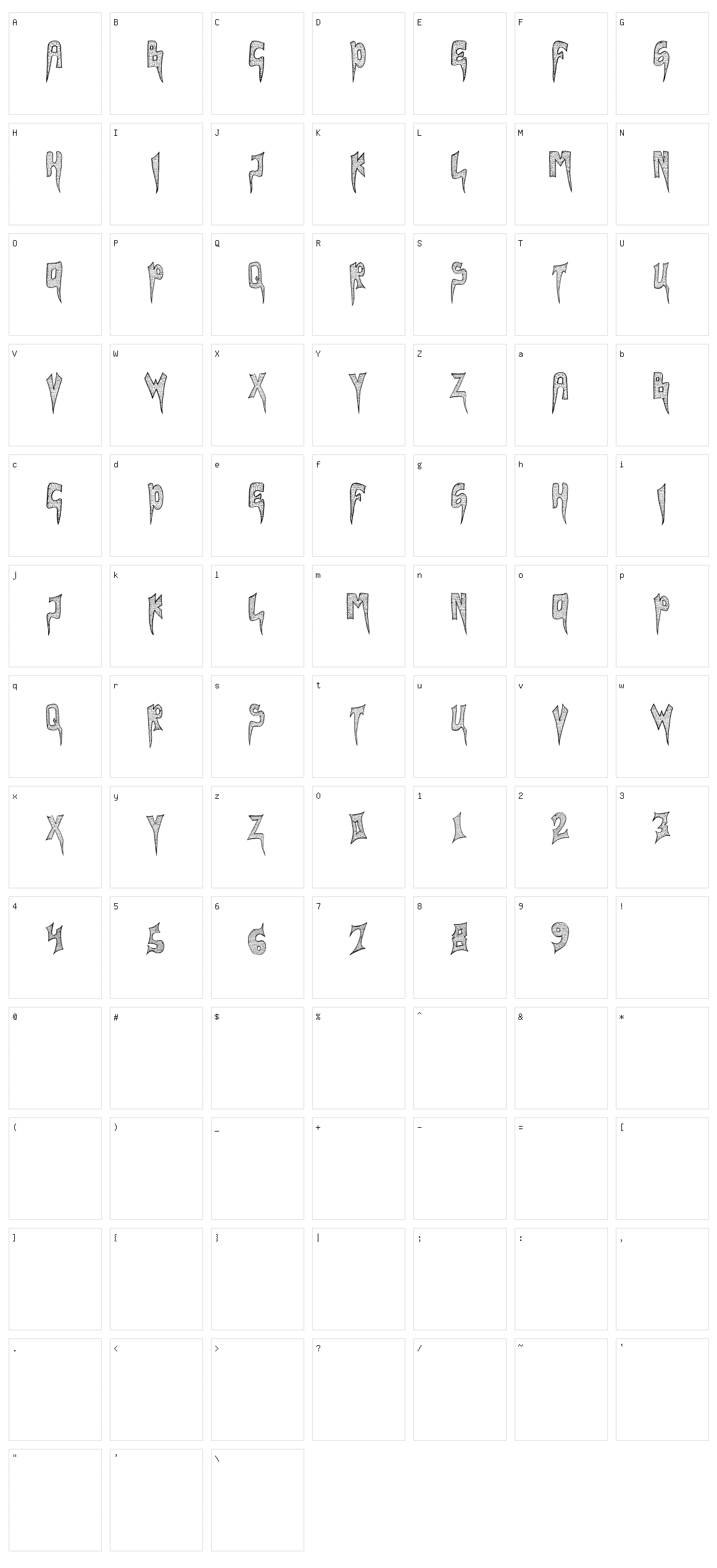
The free font Webbing is carefully designed by Ditya Ananto, showcasing a thoughtful balance of creativity and usability and falls under the Horror font style. When you download the ZIP file, it contains only 434.39 KB of font files, making it lightweight and quick to download. Please review the license details below to understand permitted usage and distribution rights. If license information is not available, we recommend using this font for personal projects only or contacting the author directly for commercial usage permissions.